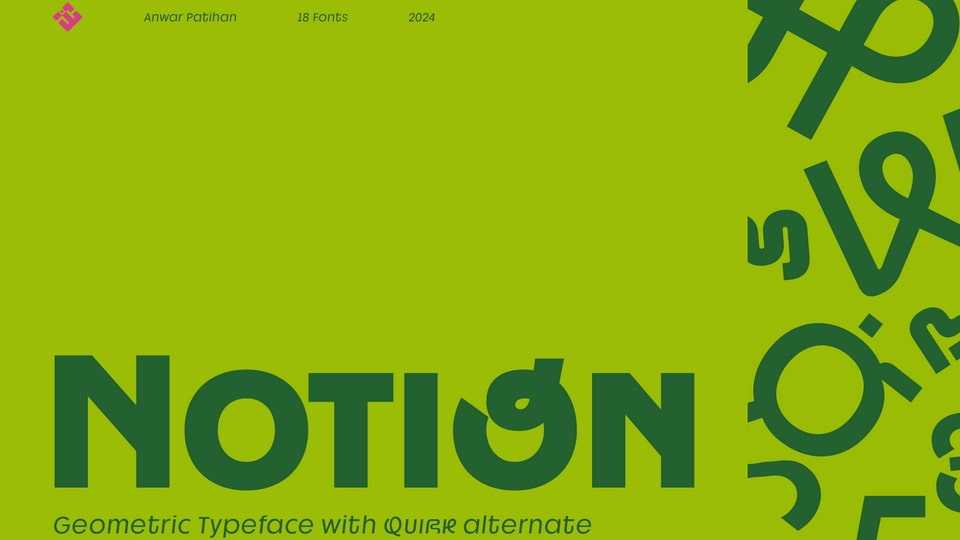
JHC Notion Font › Fontesk – Download Grátis
Download JHC Notion font, a modern geometric sans-serif typeface that strikes a perfect balance between precision and personality.
Designer: Jehoo Creative